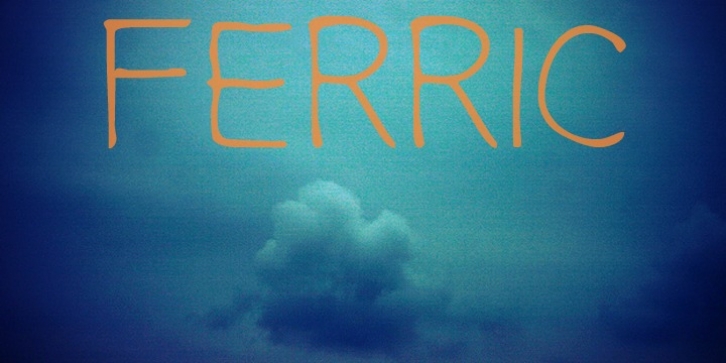
Fabrice Ducouret
Fabulous Rice
Ferric
is a font based on my handwriting. It belongs to the same world as other fonts I have created who are in the same vein.